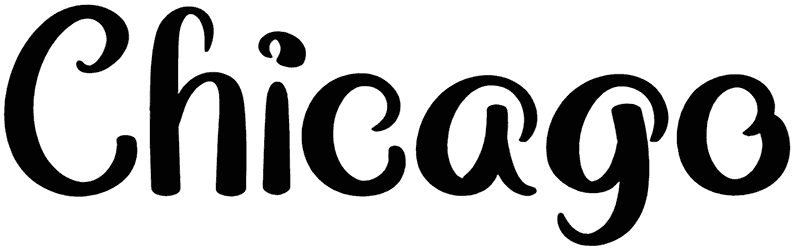
Chicago Font
Chicago is a glamorous sticker font that is commonly known for its lovely, well-rounded letters. It really deserves to be at the top of your list for designing animation posters, stickers, illustrations, social media posts, or magazines.
Chicago is a cute and chic script font. It embodies playfulness and authenticity and is the perfect choice for any project that requires a joyful touch.